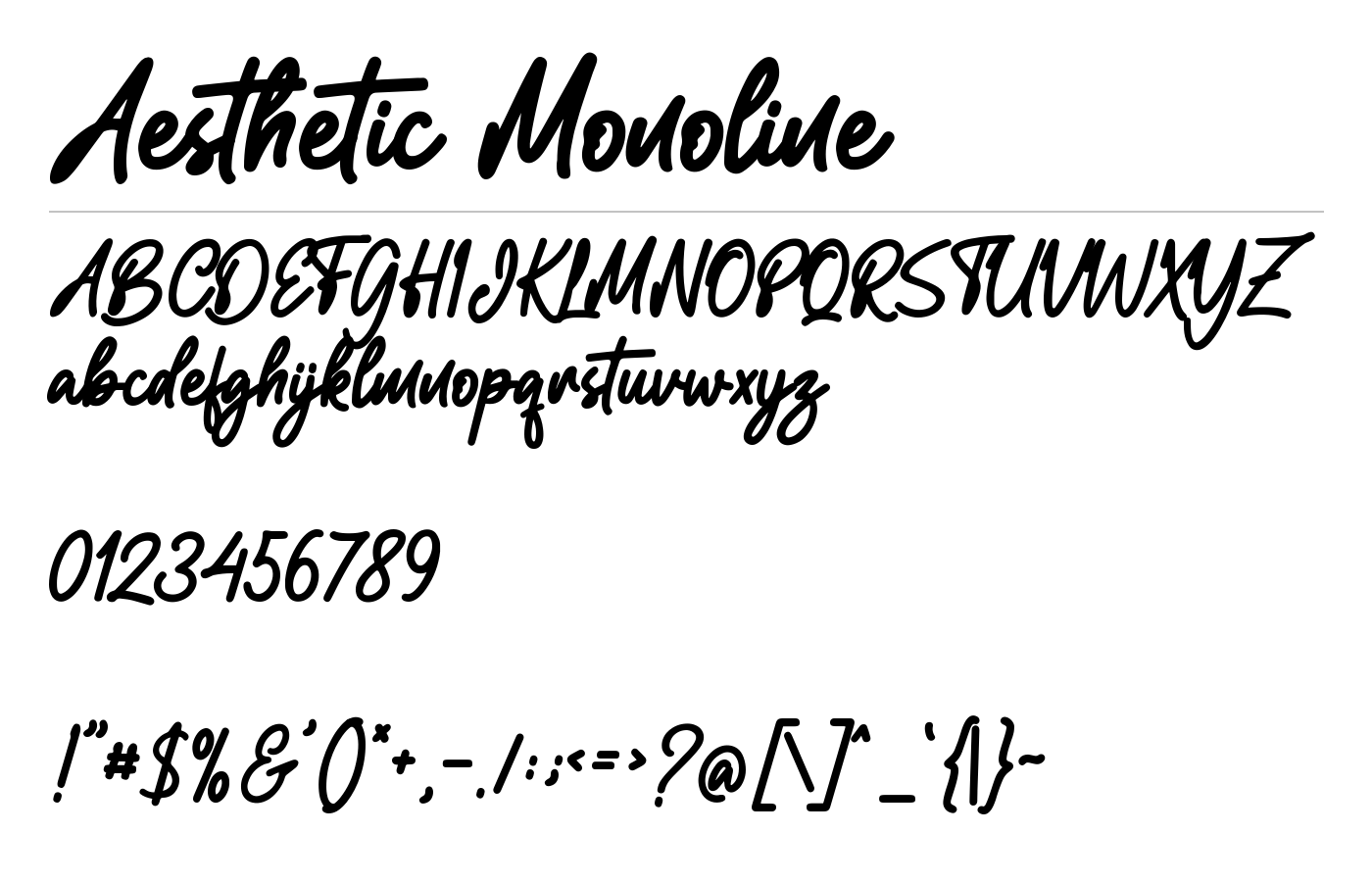
Aesthetic Monoline is a stylish script font featuring smooth, consistent stroke weight that delivers a modern and casual handwritten feel. Its flowing, slightly condensed letterforms combine elegance with approachability, making it perfect for branding, invitations, and creative projects seeking a personal yet polished touch. This font works well in headlines and logos where a friendly, artistic vibe is desired.
Aesthetic Monoline Font
About Aesthetic Monoline Font
| Designer | Aveni Yuanita |